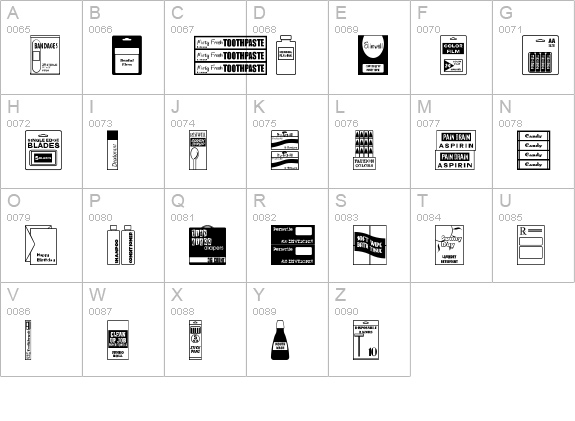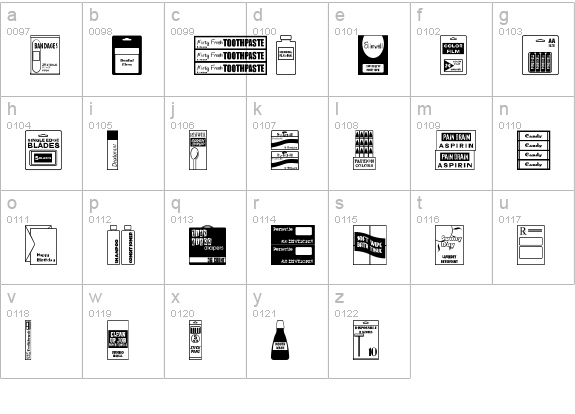
Drug Store Items JL Font Details
Drug Store Items JL font is a charming and versatile typeface perfect for all your design needs. With its bold and distinctive letterforms, this font exudes a sense of creativity and professionalism. Whether you're working on a poster, flyer, or logo design, Drug Store Items JL font will surely make your project stand out. And the best part? It's free! You can easily download Drug Store Items JL font from FontsMarket.com, making it a convenient and budget-friendly choice for your typography needs. Don't miss out on this fantastic opportunity to enhance your designs with this eye-catching font. Download Drug Store Items JL today and unleash your creativity!